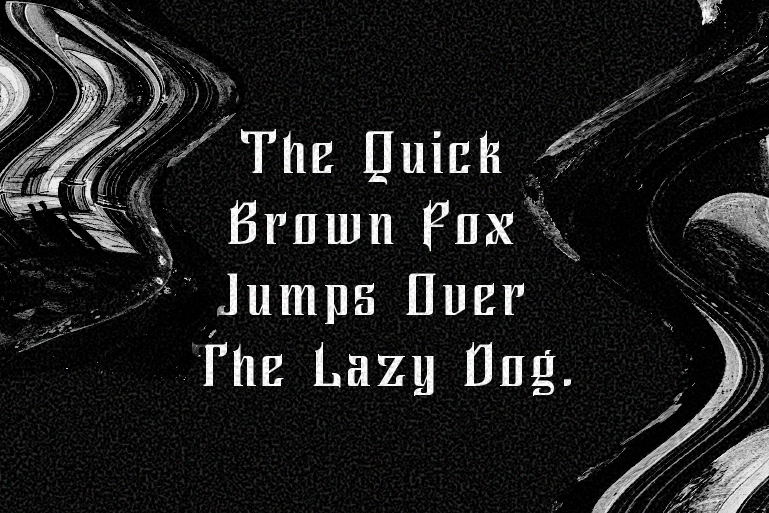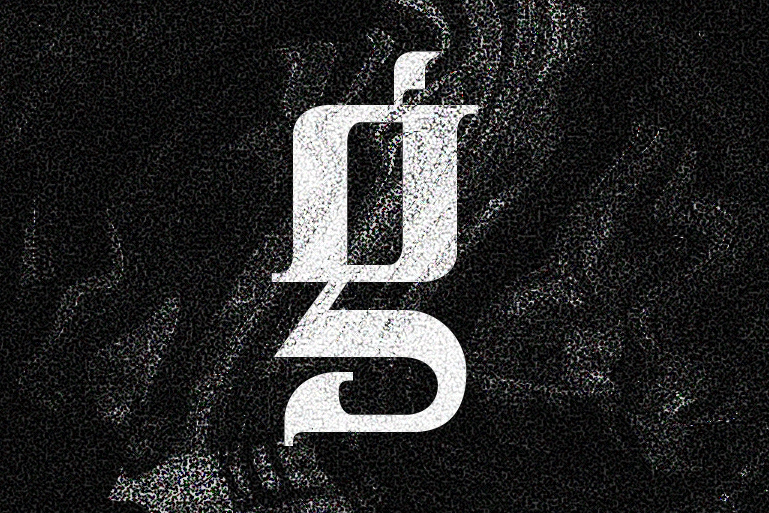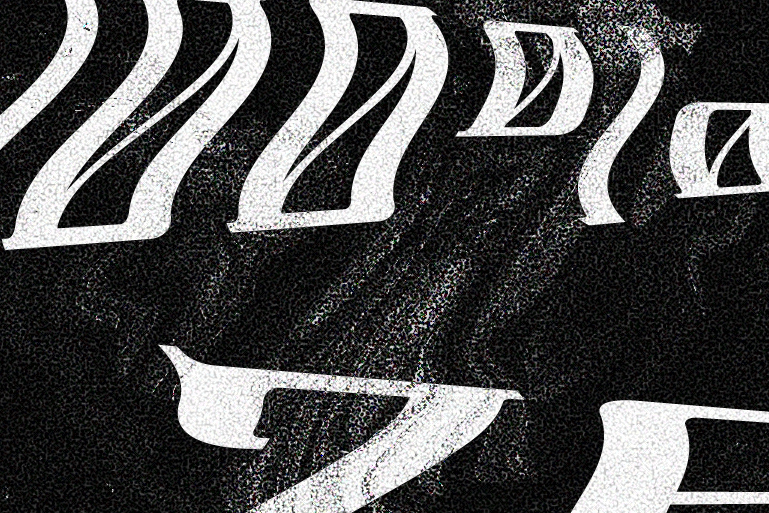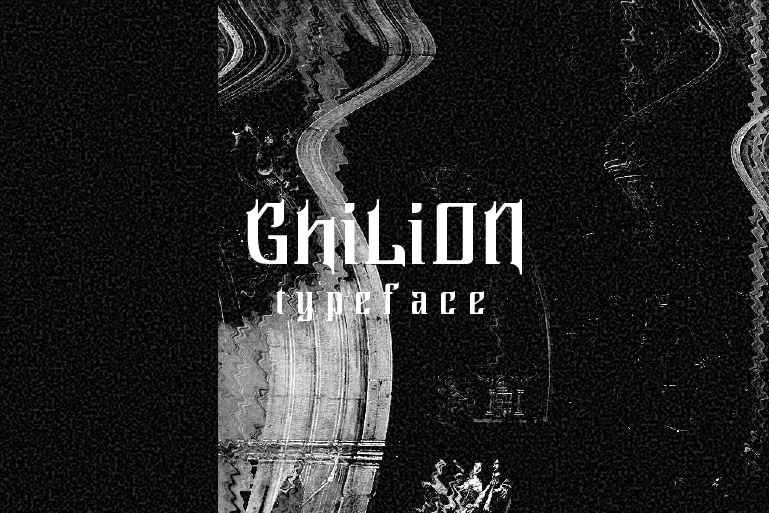
Ghilion Typeface
Ghilion Type is a font inspired by a 20th century American document with Gothic influences. Geomettrized and modernized for today\’s use.
Great for titles.